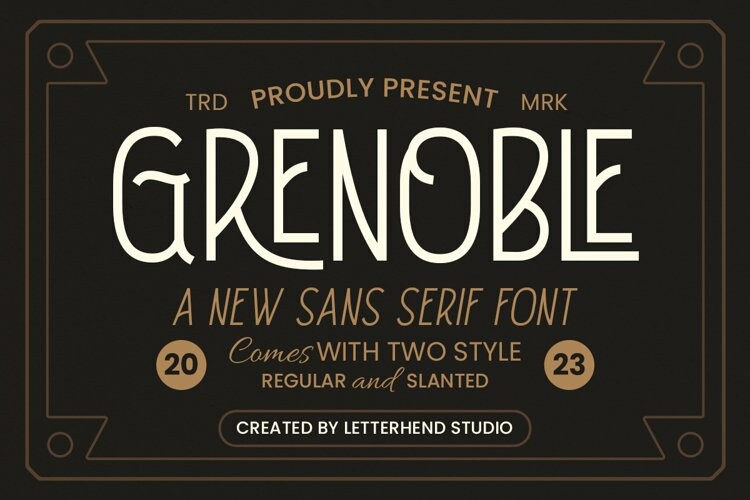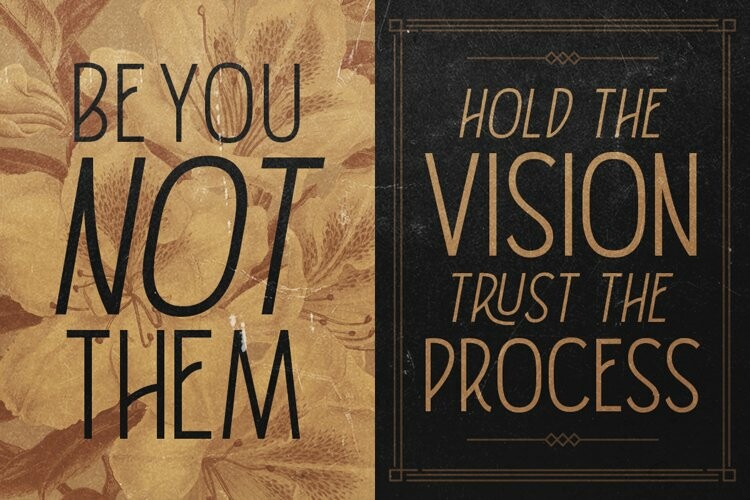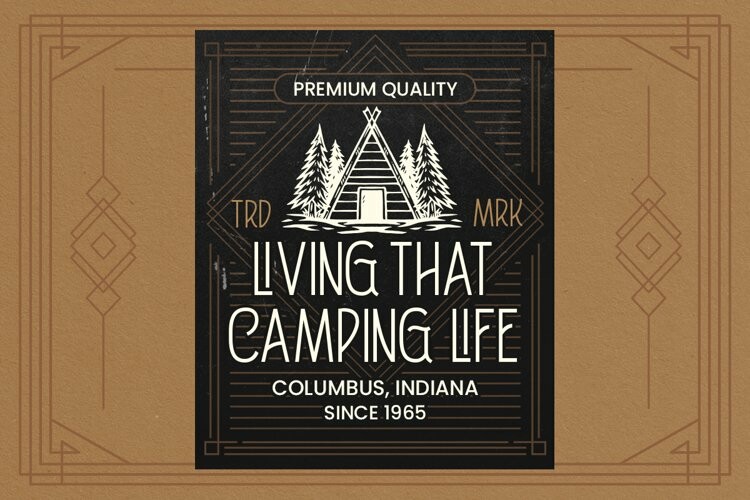
Grenoble Font
Grenoble FontSay hello to Grenoble, the sans-serif font that combines the best of modern design with the elegance of vintage feels. With its monoline strokes and clean lines, Grenoble is both simple and sophisticated. Choose between the regular and slant styles to give your designs the perfect balance of classic and contemporary style. This font perfectly made to be applied especially in logo, and the other various formal forms such as invitations, labels, logos, magazines, books, greeting / wedding cards, packaging, fashion, make up, stationery, novels, labels or any type of advertising purpose.